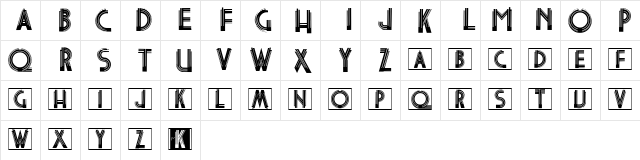
ArtNouveauCaps Regular
Design Context for ArtNouveauCaps Typeface
ArtNouveauCaps is a composed and adaptable typeface that performs quietly and consistently across a wide range of design contexts.